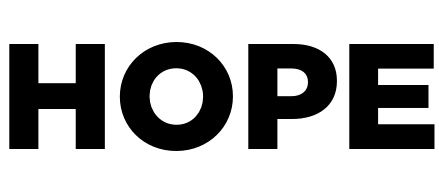
Hope Font
ArtsThe HOPE poster of Barack Obama was created by artist Shepard Fairey in 2008 during Obama's presidential campaign. It features a stylized image of Obama with the word "HOPE" written in bold letters below him.
The word "Hope" on the poster is most probably set in Gotham, a geometric sans-serif typeface designed by Tobias Frere-Jones in 2000. You can view and download the font here.